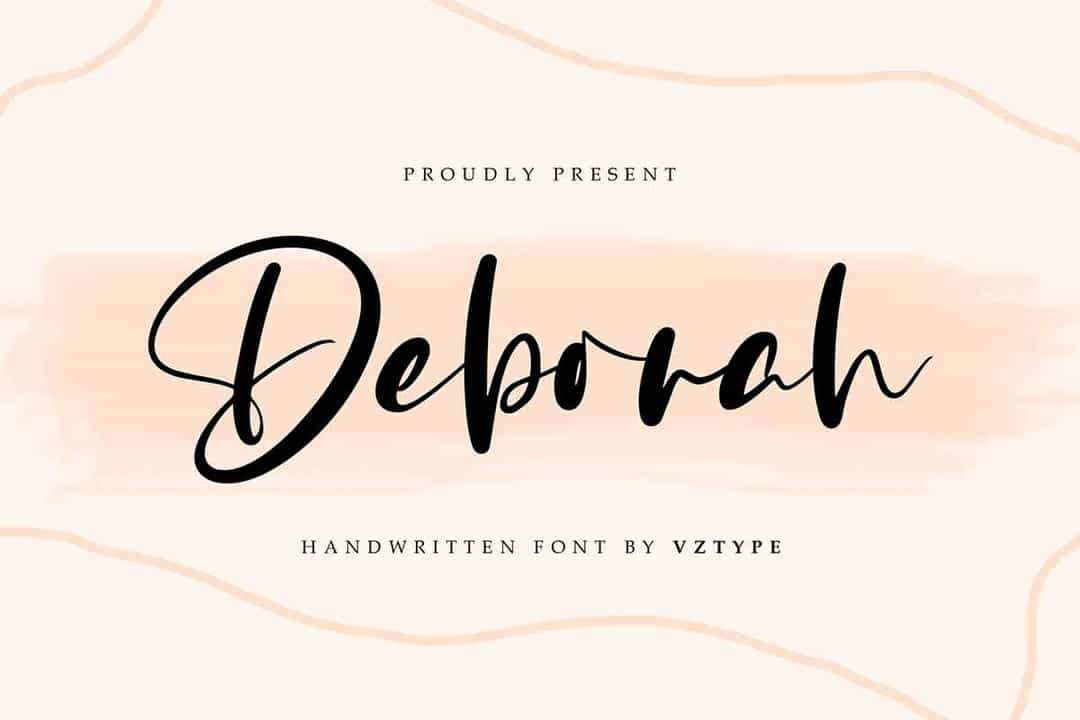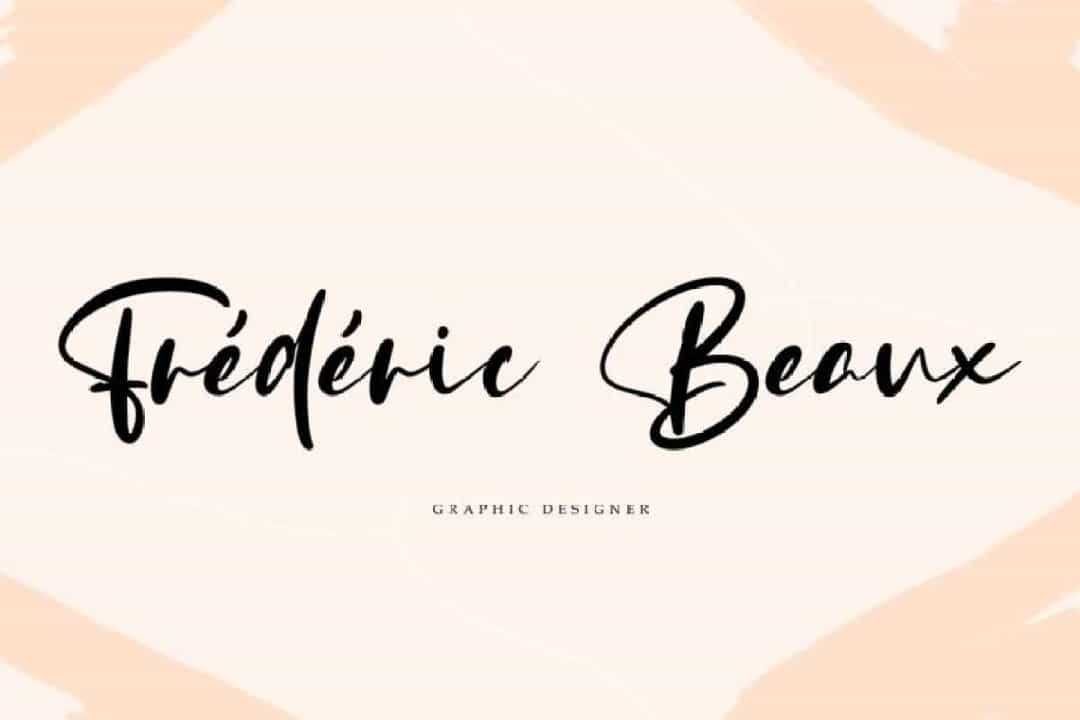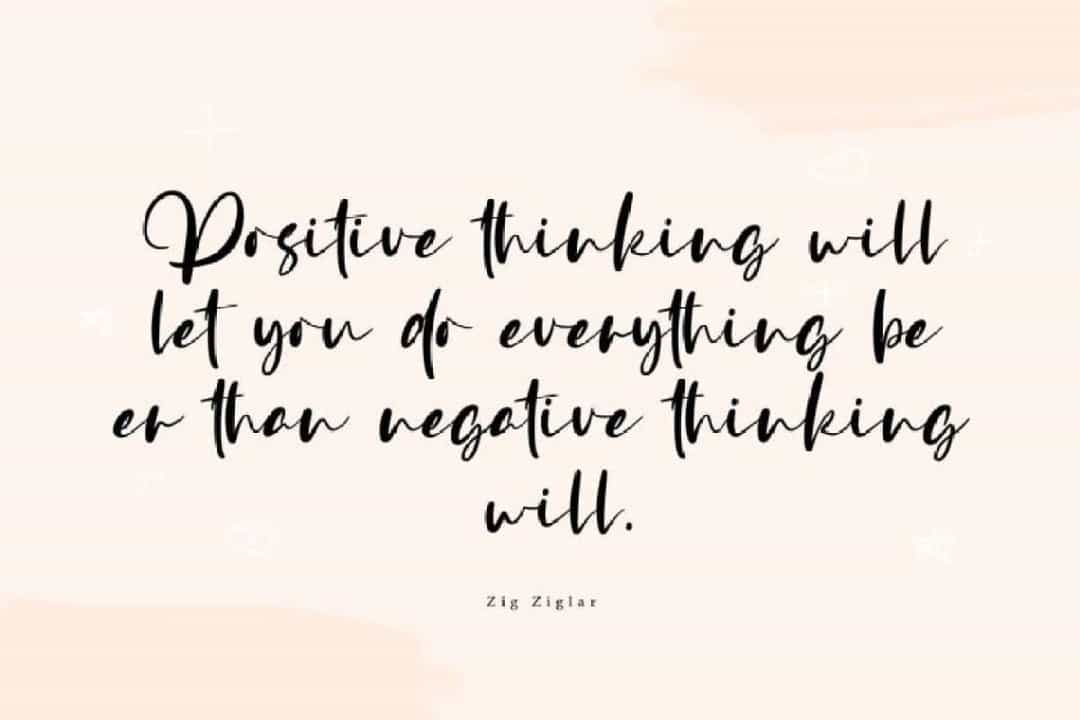
Deborah is a lovely contemporary handwritten script typeface, that blends the classic look of calligraphy from the past with a contemporary style. The combination of copperplate and modern typefaces that dance with a basic with a modern and sophisticated touch.